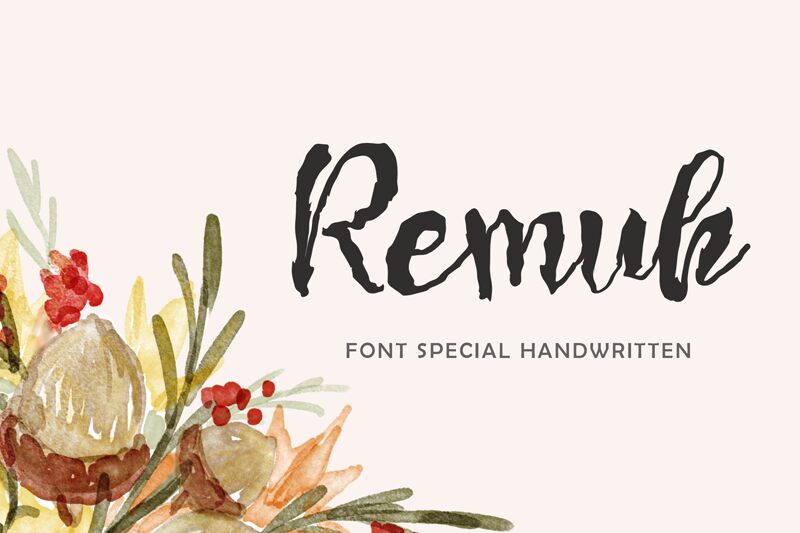
Remuk font, made by talented designer Yoga Letter, is a lovely set of script characters best described as trash style. The expressive feel of the typeface makes it that much more chaotic but with a not supreme sense of balance that’s achieved mostly through its dense texture. Hand-drawn influences are present without any doubt giving Remuk a natural artistic side you should clearly take advantage of.
Take this script free calligraphy font on an adventure of giving visual identity to music album covers, band merch clothing items, wall murals in busy streets, podcasts about art and artists, exotic food brands and restaurants; shops serving tattoo clients or drawing out magazines for fashionistas.